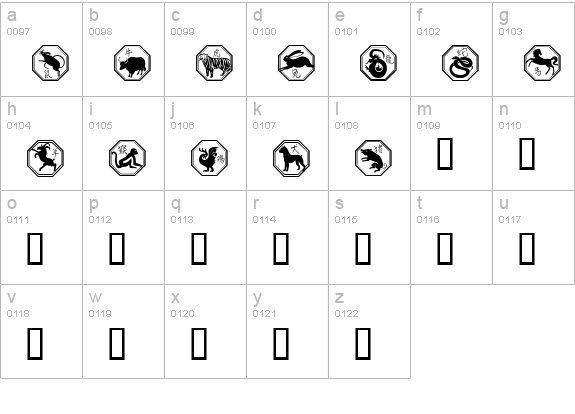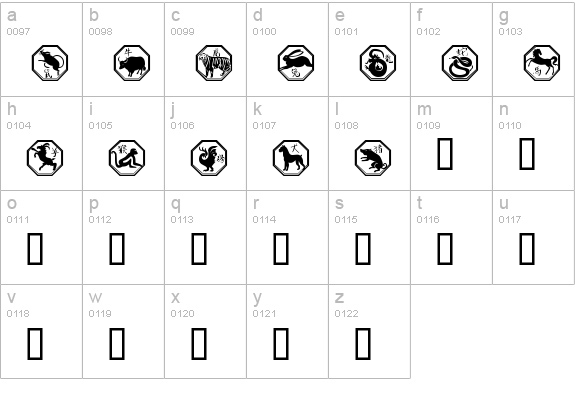
Chinese Zodiac Font Details
The Chinese Zodiac font is a beautifully crafted typeface that captures the essence of the ancient zodiac symbols with a modern twist. Each character is meticulously designed to embody the unique traits and personalities associated with the twelve animals of the Chinese zodiac. From the fierce and majestic dragon to the clever and cunning rat, every glyph in this font carries a sense of tradition and mystique. Whether you're creating a design inspired by Chinese astrology or simply looking to add a touch of cultural flair to your project, the Chinese Zodiac font is the perfect choice. Its elegant strokes and intricate details make it a versatile and eye-catching addition to any creative endeavor. Best of all, the Chinese Zodiac font is available for free download at FontsMarket.com. So go ahead and unleash the power of the zodiac in your designs with this stunning font that captures the spirit of the Chinese astrological tradition.